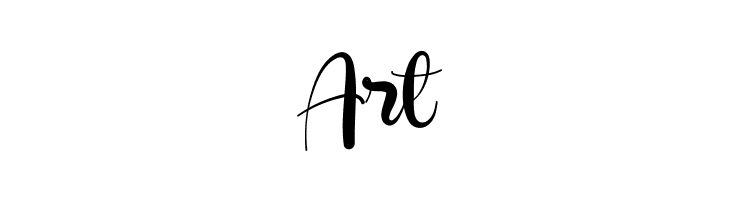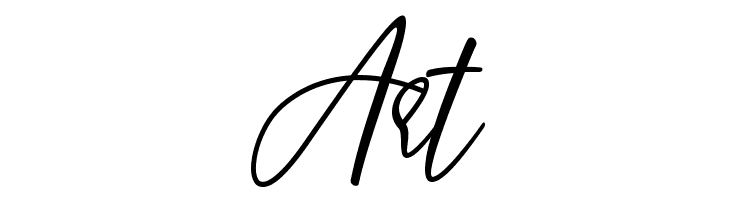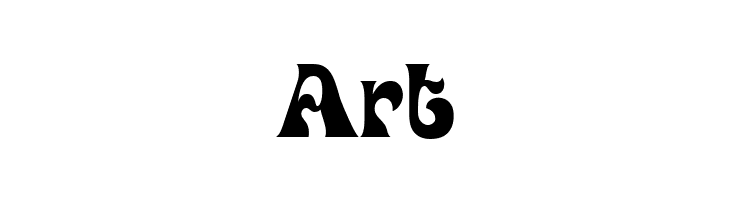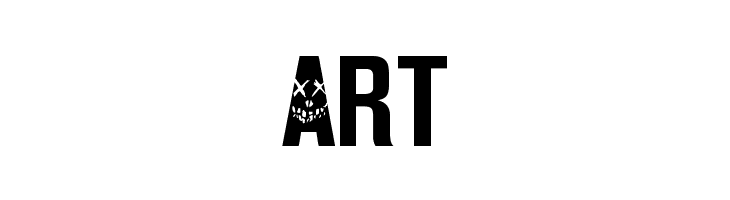
A bold, edgy font with unique skull-like details for a rebellious look.
A lively, cursive script font with a handwritten feel.
A bold, cursive script font with a lively and energetic style.
A lively, cursive font with a playful, handwritten style.
A bold, playful font with wavy, artistic characters.
A bold, expressive handwritten font with dynamic strokes and artistic flair.